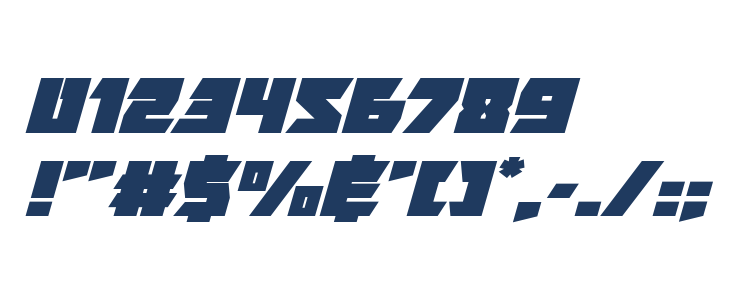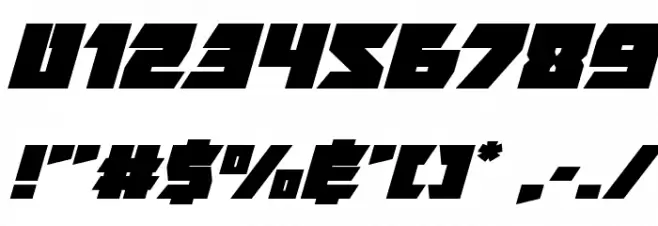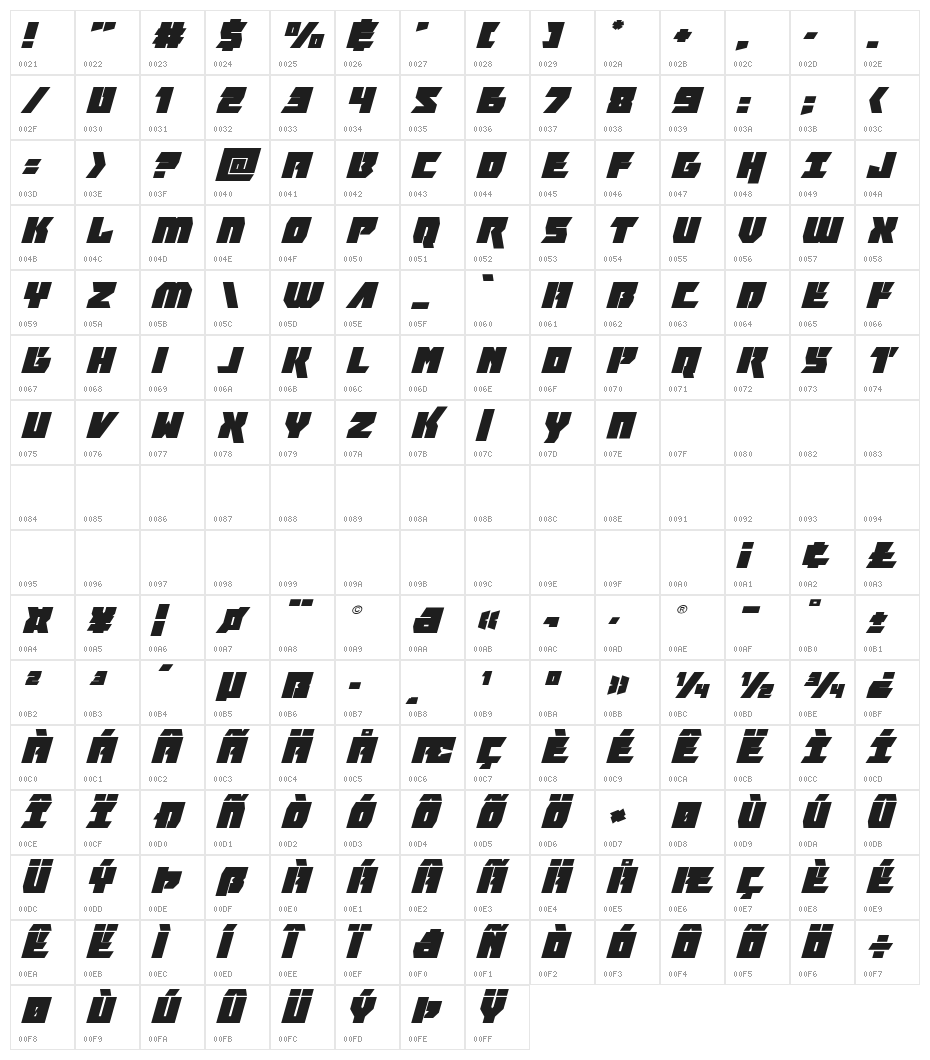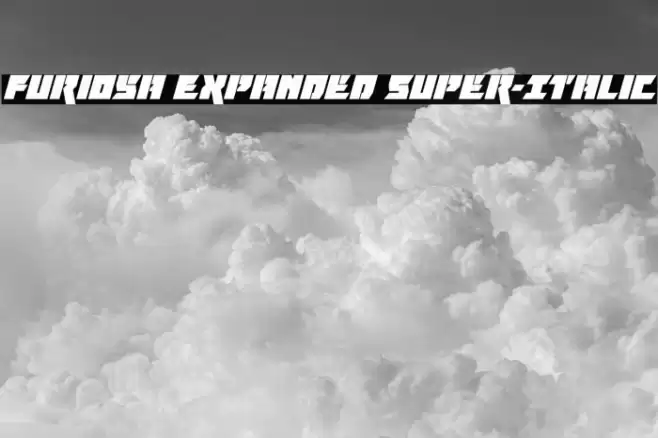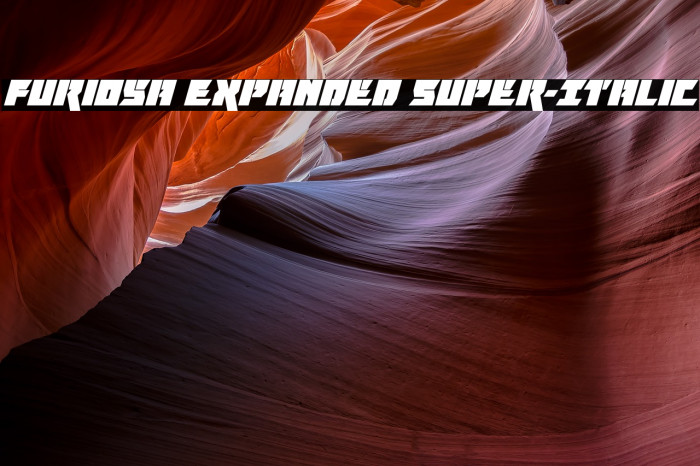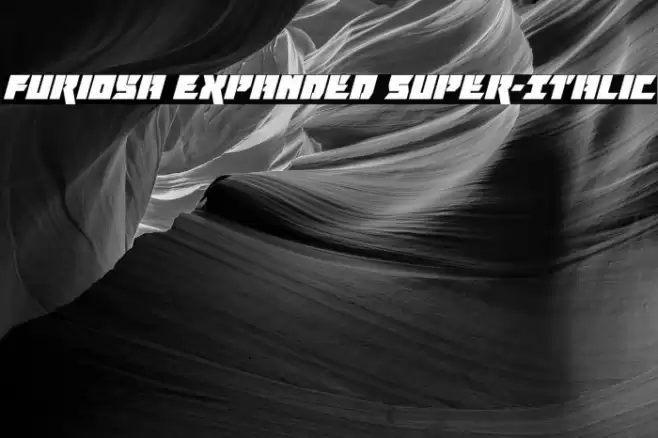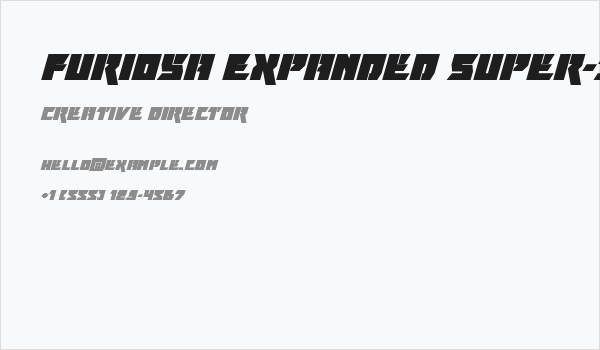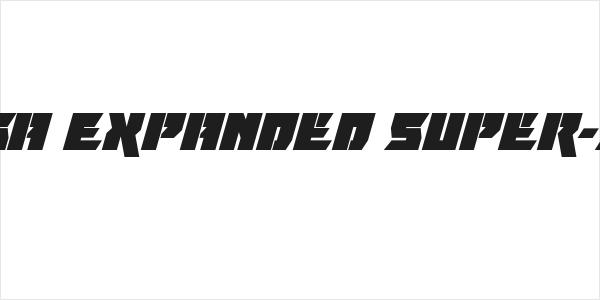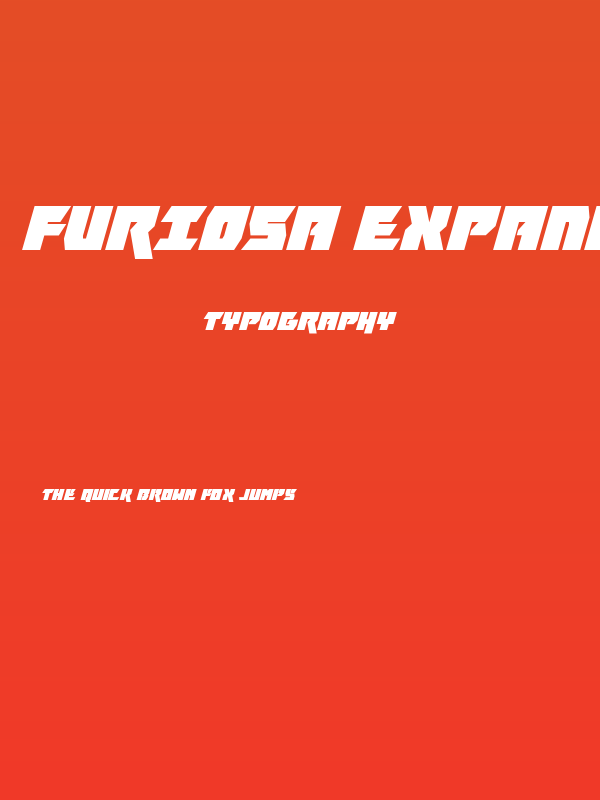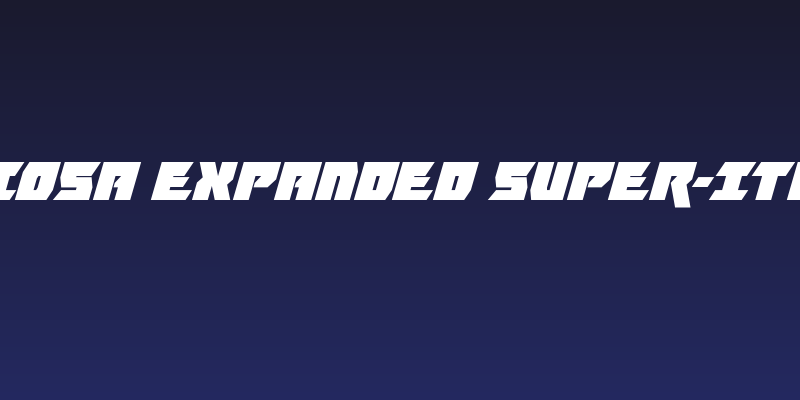
Furiosa Expanded Super-Italic Font
Furiosa Expanded Super-Italic Description
This font features a bold and dynamic design with a distinctly angular and geometric style. The characters are sharply cut with exaggerated angles, giving them a futuristic and aggressive appearance. The expanded width enhances the boldness, making each letter stand out prominently. The italic slant adds a sense of motion and speed, contributing to its modern and edgy aesthetic. The font maintains consistent stroke thickness, ensuring readability while emphasizing its strong visual impact. It's suitable for projects that require a striking and unconventional look.
| Proposed Projects | Ideal for use in video game titles, movie posters, sports branding, and any project needing a bold, futuristic aesthetic. |